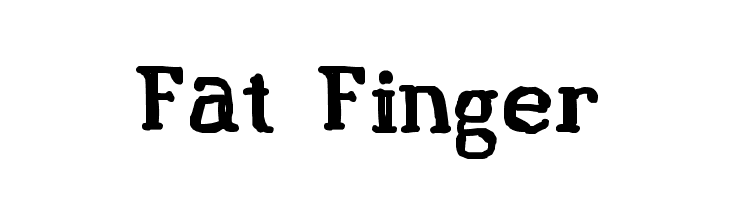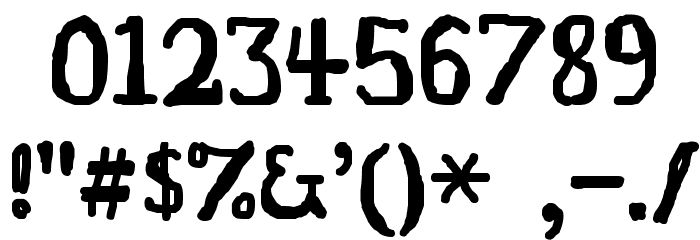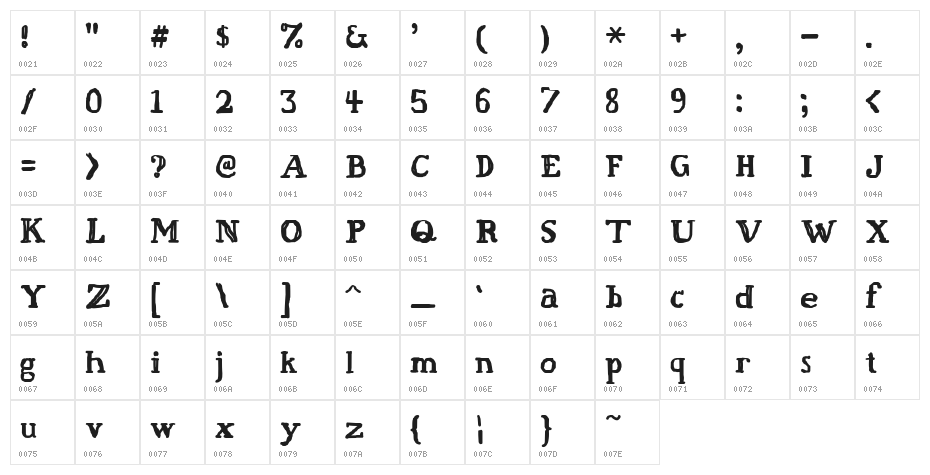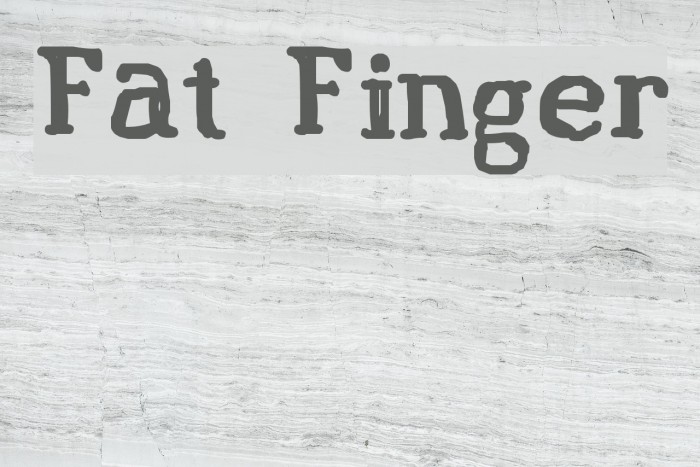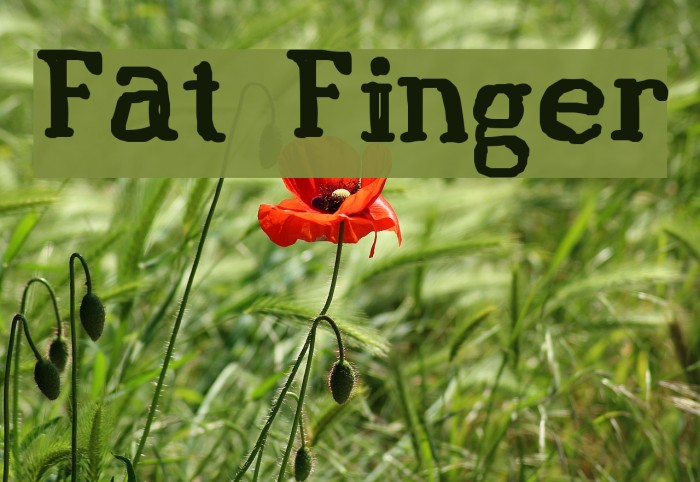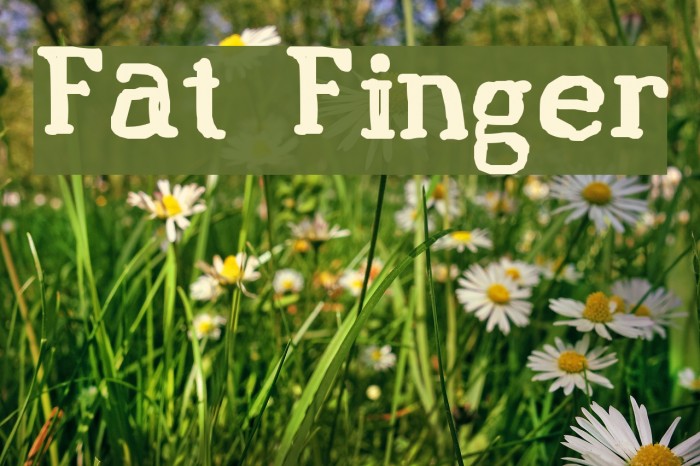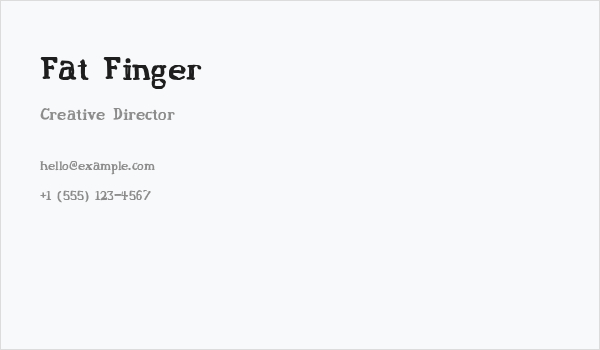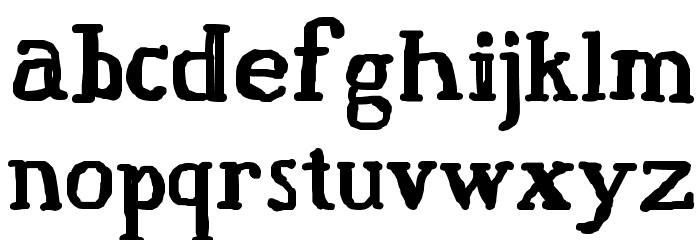
Fat Finger Font
Fat Finger Description
This font features a bold and playful design with a hand-drawn aesthetic. The characters are thick and slightly irregular, giving them a whimsical and informal appearance. The uppercase and lowercase letters maintain a consistent style, with rounded edges and a slightly uneven baseline that adds to the casual feel. The numerals and special characters follow the same design principles, ensuring a cohesive look across all elements. This font's unique style makes it stand out, offering a friendly and approachable vibe.
| Proposed Projects | Ideal for children's books, playful branding, casual invitations, and creative posters. |